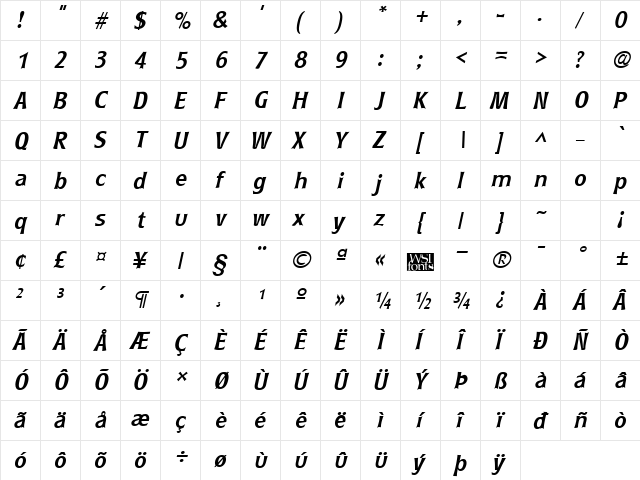
Rynders Bold Italic
Design Context for Rynders Typeface
Rynders takes a measured approach to typography — its balanced proportions and neutral character make it a reliable workhorse for both digital and print work. Its italic angle brings a sense of urgency and motion to the letterforms. The heavy weight commands attention and anchors typographic hierarchies.
Pro Tip: Use Rynders for emphasis, pull quotes, and subheadings where its slanted energy can add rhythm to the layout.